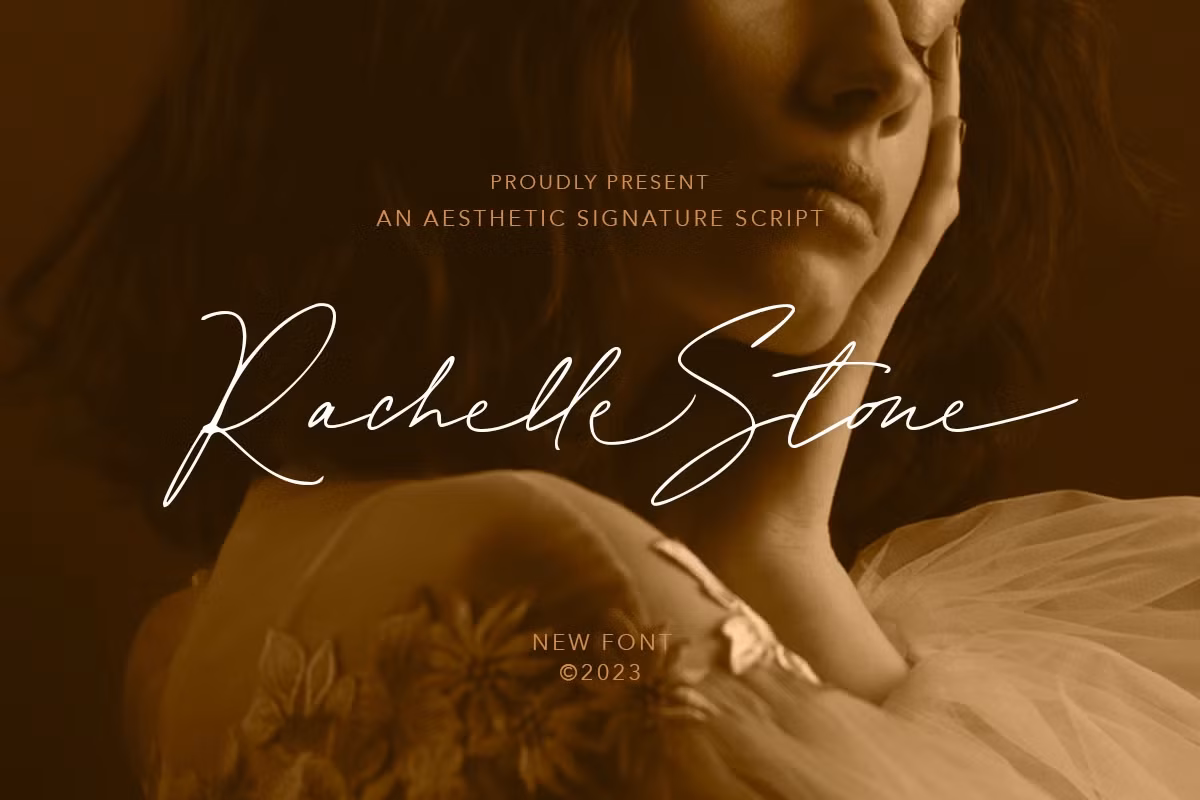
Rachelle Stone - Signature Script Free Download
Rachelle Stone - Signature Script Font Free Download
Rachelle Stone - Signature Script Font Free Download is a luxurious and elegant script typeface designed to evoke the feel of a personal, handwritten signature. With its fluid, sophisticated curves and graceful strokes, this font is perfect for high-end branding, wedding invitations, logos, and other premium projects. The natural flow of each letter adds a personal touch, making it ideal for designs that need a refined yet artistic look. Whether you're creating a chic brand identity or elegant promotional materials, Rachelle Stone - Signature Script Font Free Download lets you test its stylish charm in personal projects before purchasing a commercial license. Add a touch of elegance and personality to your work with this beautifully crafted signature font.